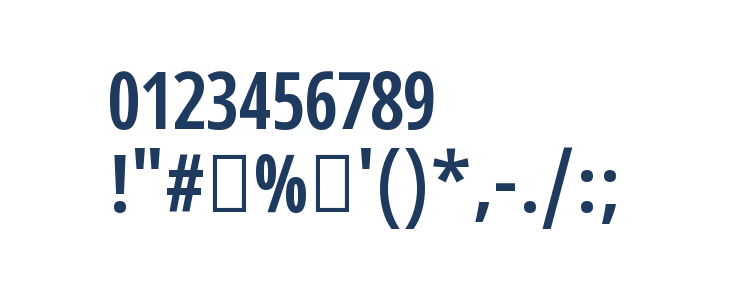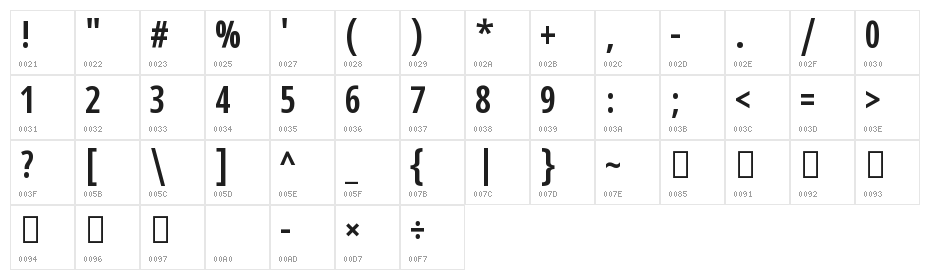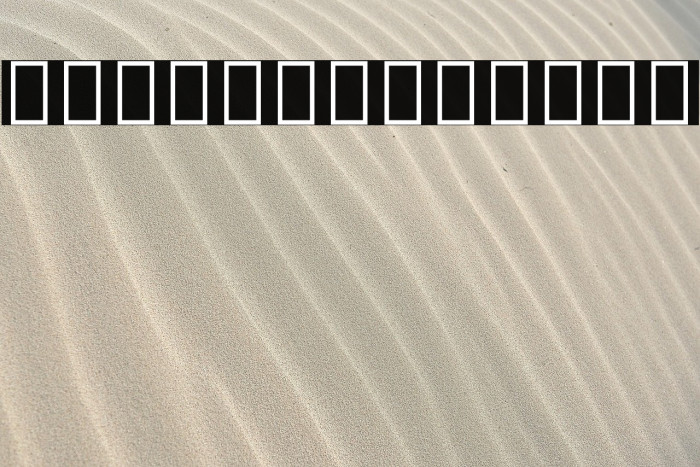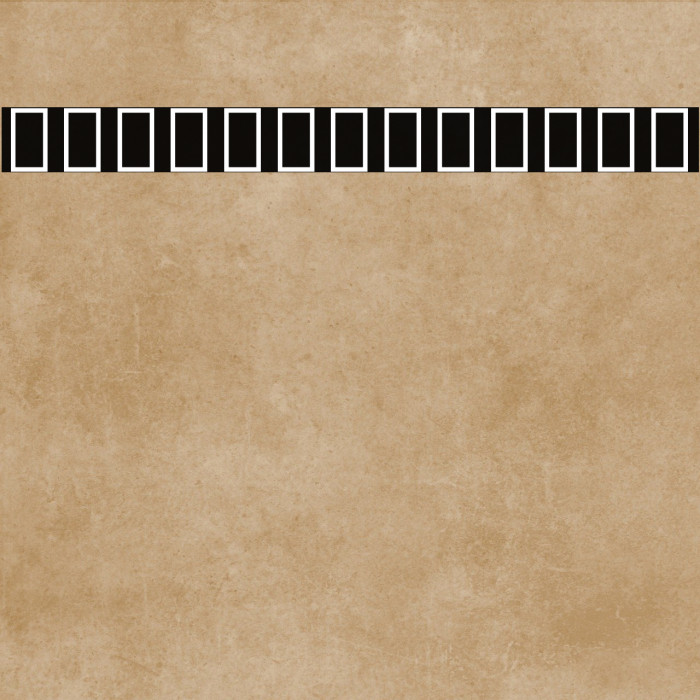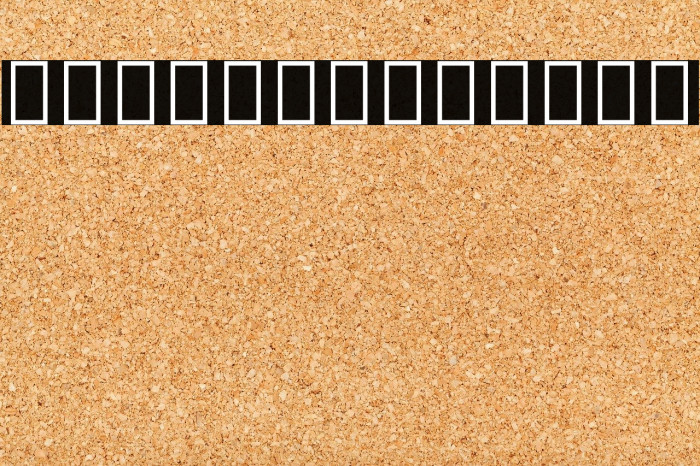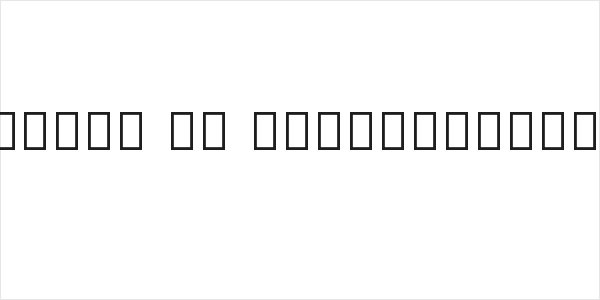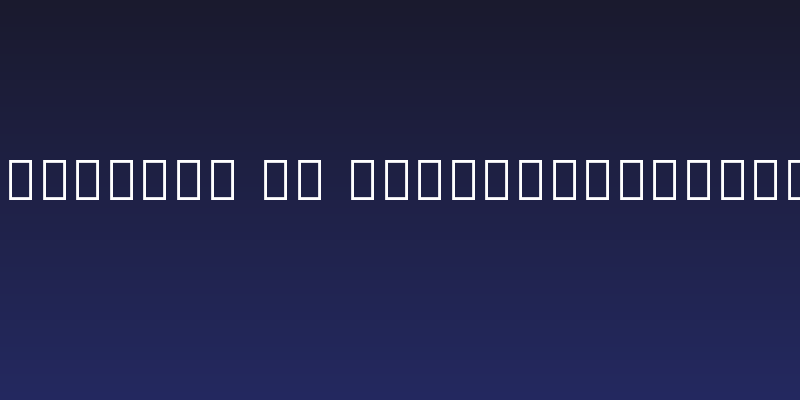
Noto Sans Sinhala UI ExtraCondensed SemiBold Font
Noto Sans Sinhala UI ExtraCondensed SemiBold Description
This font is designed with a focus on clarity and readability, featuring a clean and modern aesthetic. The characters are uniformly structured, providing a balanced and harmonious appearance. The numerals and special characters are distinct and easily recognizable, making them suitable for various applications. The font's design emphasizes simplicity and functionality, ensuring it performs well in both digital and print media. Its contemporary style is complemented by a semi-bold weight, offering a strong presence without overwhelming the reader.
| Use Case | Headlines, User Interfaces, Digital Content |
| Proposed Projects | Ideal for user interfaces, digital content, signage, and branding materials. |